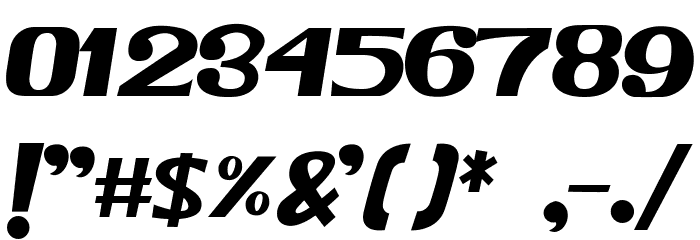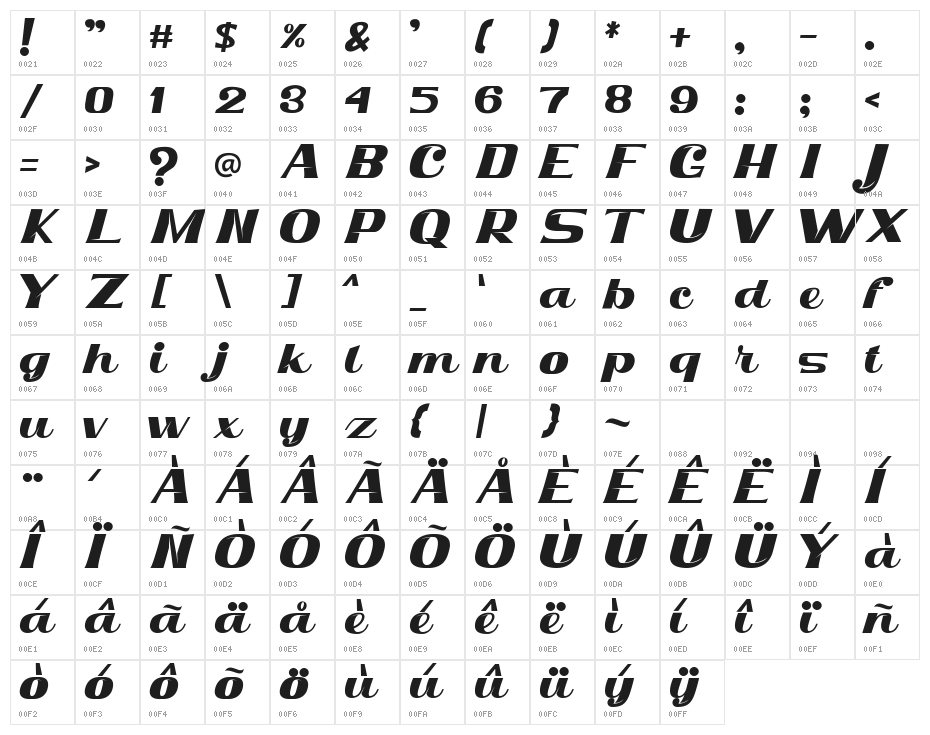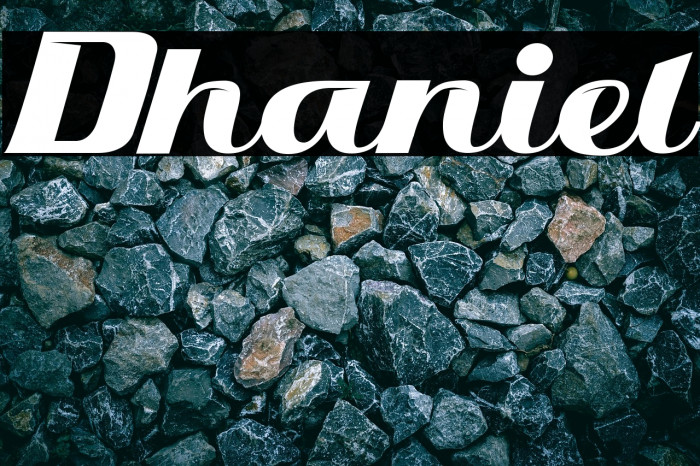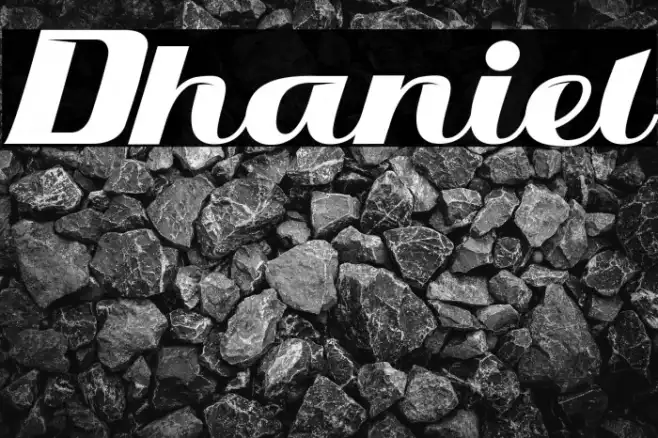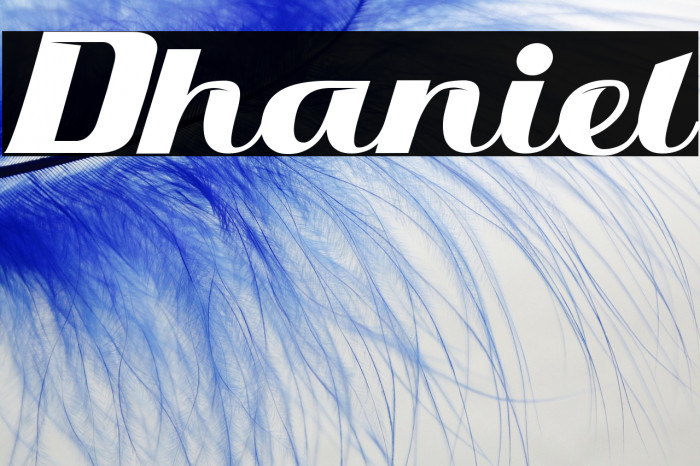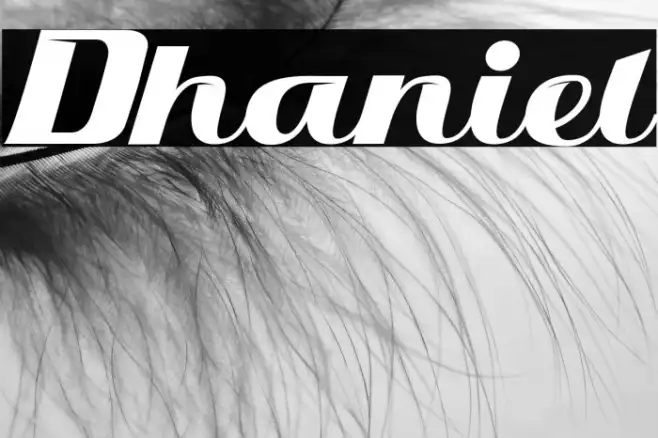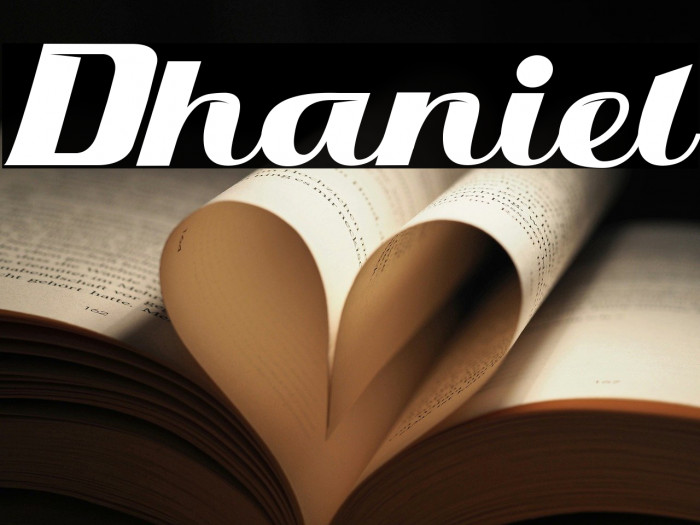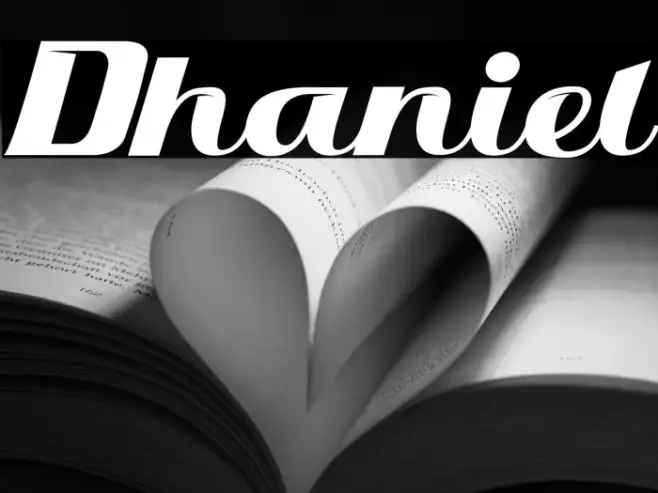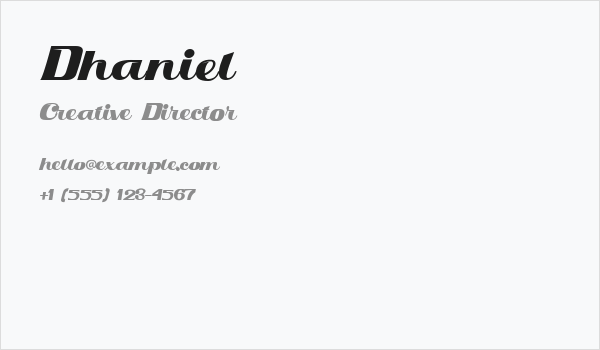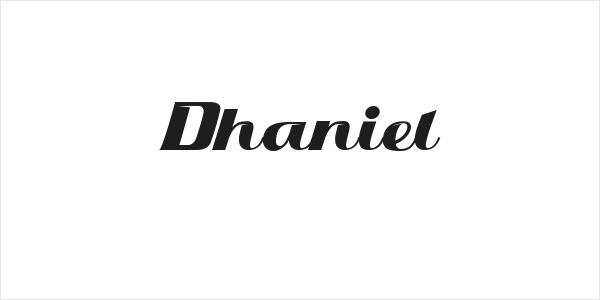
Dhaniel Font
Dhaniel Description
This font features a bold and dynamic style with a strong italic slant, giving it a sense of motion and energy. The characters are wide and have a distinct, angular design, making them stand out prominently. The uppercase letters are particularly striking, with sharp edges and a futuristic feel. The lowercase letters maintain the same boldness but with a slightly more rounded approach, adding a touch of elegance. The numerals are consistent with the overall style, ensuring readability while maintaining the font's unique characteristics. Special characters are well-integrated, supporting a wide range of uses.
| Proposed Projects | Ideal for branding, sports team logos, dynamic posters, and modern advertising campaigns. |